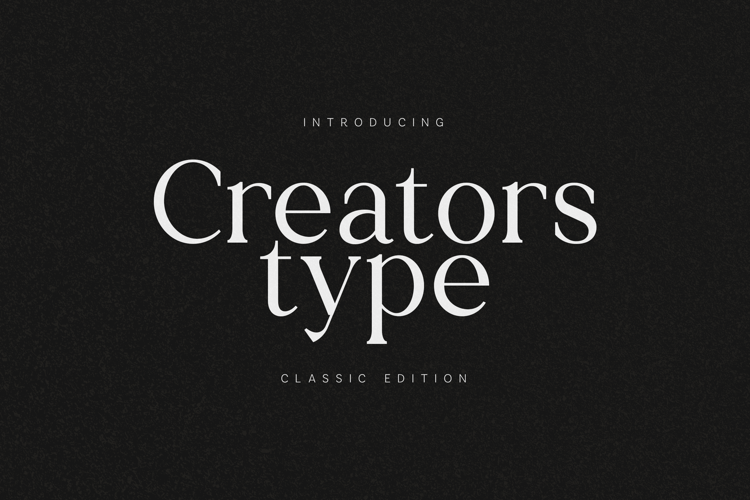
Creators Type Classic Serif Font
Creators Type is a timeless classic serif font designed for thoughtful creators, storytellers, and brands that value elegance and clarity. With balanced proportions, soft contrast, and refined serif details, this typeface blends traditional typography principles with a modern creative sensibility.
The font performs beautifully in editorial layouts, branding, publishing, book covers, magazines, cultural projects, and refined digital experiences. Its calm rhythm and classic structure make it ideal for long-form headlines as well as expressive titles, offering versatility without losing character.
Creators Type is crafted to feel familiar yet distinctive—an essential serif for designers who build meaningful, lasting visual identities.